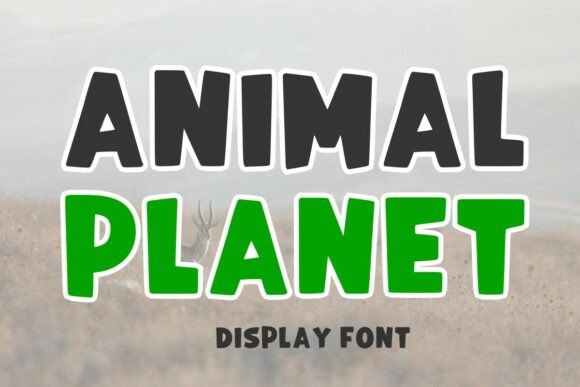
Introducing Animal Planet Font: The Ultimate Display Font for Friendly Designs
Are you tired of using the same old fonts for your designs? Look no further than the Animal Planet Font, a childish and easy-to-read display font that’s perfect for conveying impeccable friendliness. Whether you’re a designer, crafter, or DIY enthusiast, this font is sure to become your go-to choice for all your creative projects.
What Makes Animal Planet Font So Special?
Animal Planet Font is a unique and playful font that’s designed to bring a smile to your face. Its childish and innocent vibe makes it perfect for designs that require a friendly and approachable tone. The font’s easy-to-read style ensures that your message is conveyed clearly and effectively, making it ideal for a wide range of applications.
Endless Possibilities with Animal Planet Font
The versatility of Animal Planet Font is one of its most significant advantages. Whether you’re working on a craft project, digital design, presentation, or greeting card, this font is sure to add a touch of personality and whimsy. Here are some of the many ways you can use Animal Planet Font:
- Crafts: Add a playful touch to your DIY crafts, such as scrapbooking, card making, or paper crafting.
- Digital Designs: Use Animal Planet Font in your digital designs, including social media graphics, blog posts, or website headers.
- Presentations: Make your presentations more engaging and fun with this friendly font.
- Greeting Cards: Create personalized and playful greeting cards for special occasions.
- Product Packaging: Add a touch of whimsy to your product packaging and make it stand out.
- Invitations: Create fun and playful invitations for parties, events, or gatherings.
- Quotes: Use Animal Planet Font to add a touch of personality to your inspirational quotes or motivational posters.
- T-Shirts: Design fun and playful t-shirts with this easy-to-read font.
- Labels: Create colorful and playful labels for your products or gifts.
- Posters: Design eye-catching posters for events, promotions, or awareness campaigns.
- Logos: Use Animal Planet Font to create a friendly and approachable logo for your brand.
Why Designers and Crafters Love Animal Planet Font
Animal Planet Font has quickly become a favorite among designers and crafters due to its unique and playful style. Here are some reasons why:
- Easy to Read: The font’s clear and easy-to-read style ensures that your message is conveyed effectively.
- Versatile: Animal Planet Font can be used for a wide range of applications, from crafts to digital designs.
- Playful: The font’s childish and playful vibe adds a touch of personality to your designs.
- Customizable: You can use Animal Planet Font in various colors, sizes, and styles to suit your design needs.
Tips for Using Animal Planet Font
Here are some tips for getting the most out of Animal Planet Font:
- Pair with Other Fonts: Combine Animal Planet Font with other fonts to create a unique and visually appealing design.
- Experiment with Colors: Try out different colors and color combinations to add depth and interest to your design.
- Use for Headings: Use Animal Planet Font for headings and titles to add a touch of personality to your design.
- Add Graphics: Combine Animal Planet Font with graphics or illustrations to create a fun and playful design.
Animal Planet Font is a versatile and playful display font that’s perfect for designers, crafters, and DIY enthusiasts. Its childish and easy-to-read style makes it ideal for a wide range of applications, from crafts to digital designs. With its endless possibilities and customizable style, Animal Planet Font is sure to become your go-to font for all your creative projects.